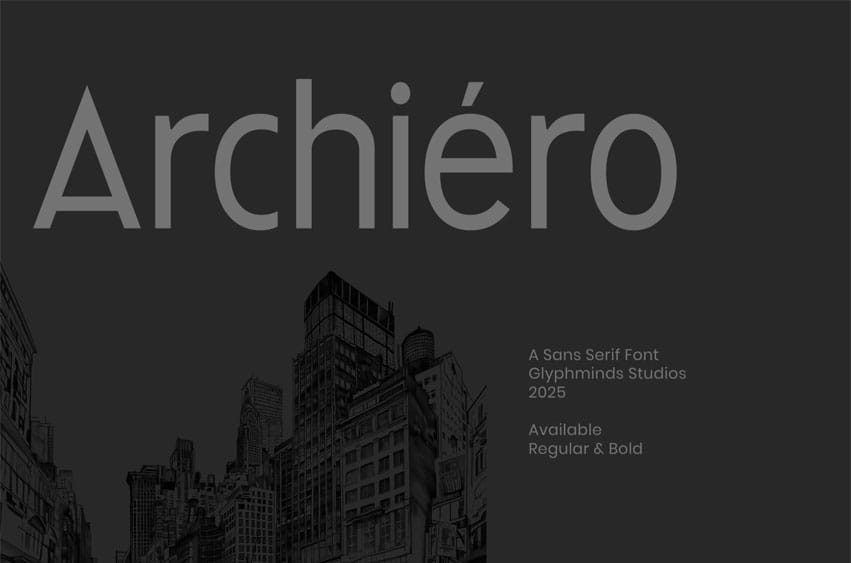
IB Archiéro Font is a stunningly clean and geometric sans-serif font forged with the principles of modern architecture in mind. Its balanced letterforms and structural integrity provide the perfect foundation for projects that demand clarity, sophistication, and a contemporary edge.
Whether you are crafting a powerful brand identity, designing a minimalist website, or laying out a professional portfolio, Archiéro delivers unparalleled legibility and style. With both Regular and Bold weights included, you have the versatility to create striking headlines and easy-to-read body text that command attention.